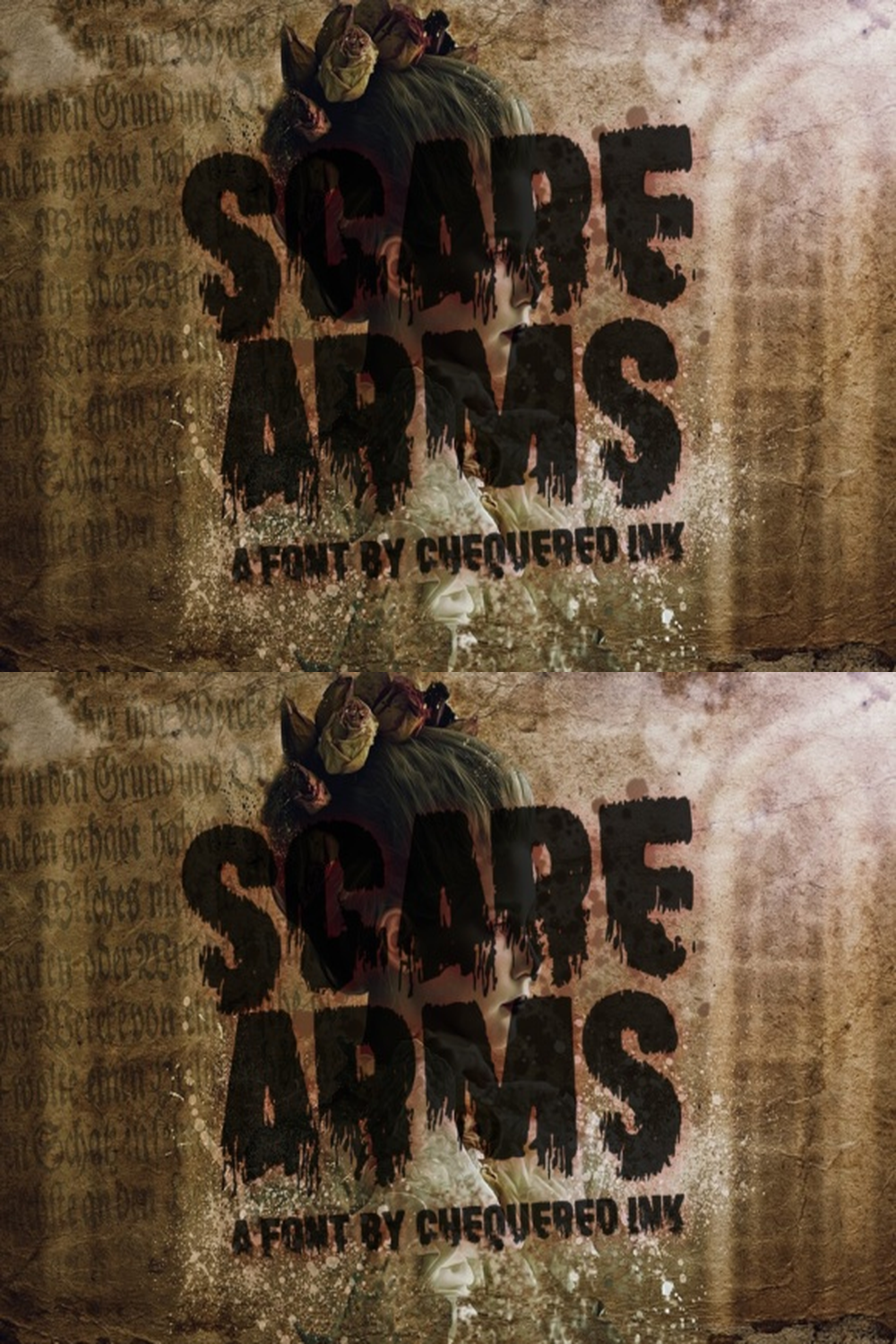
Scare Arms Font: A Creepy Display Font for Halloween Posters
About the Scare Arms Font
Get ready to be inspired by Scare Arms Font, a fresh and dynamic typeface for modern creators. The Scare Arms is a creepy font perfect for horror films or Halloween promotions.
Scare Arms Font Usage Examples